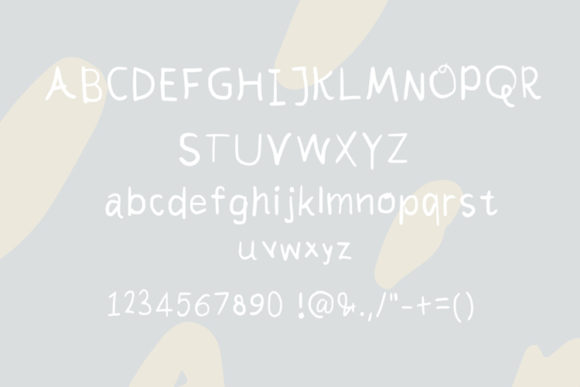
Introduction to Lisaceria Font
The Lisaceria is an amazing handwritten font.
It has a modern and clean look which can be used for quotes, logos, blogs, invitations, business cards, and much more .